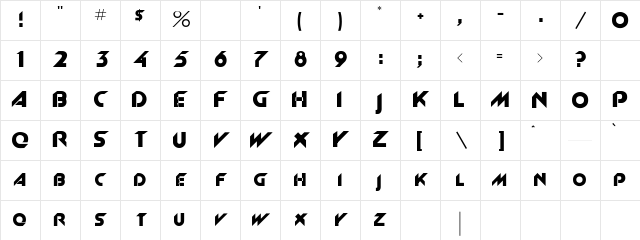
Slant Regular
Design Context for Slant
Slant is a composed and adaptable typeface that performs quietly and consistently across a wide range of design contexts.